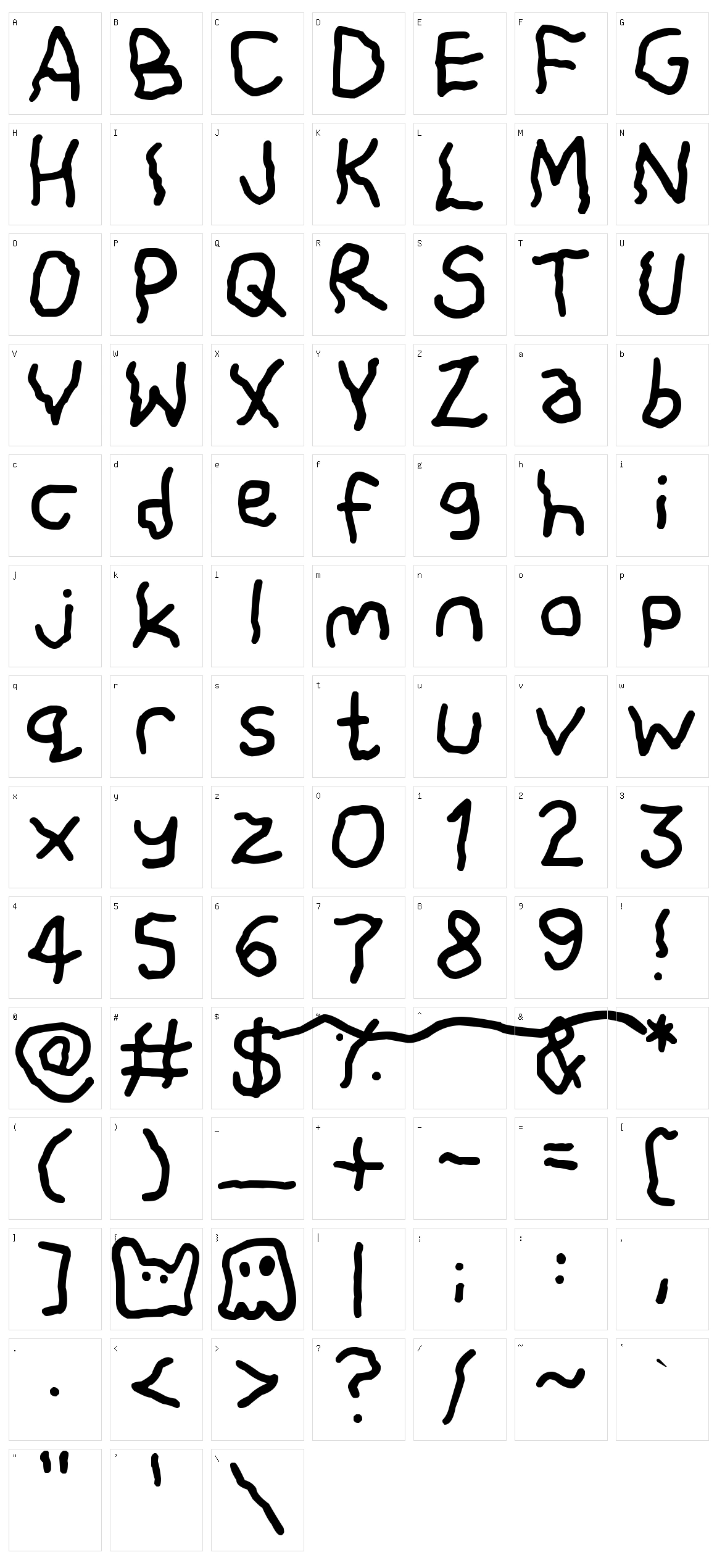
The free font Shiver is carefully designed by Hawtpixel, showcasing a thoughtful balance of creativity and usability and falls under the Script font style. When you download the ZIP file, it contains only 246.92 KB of font files, making it lightweight and quick to download. Please review the license details below to understand permitted usage and distribution rights. If license information is not available, we recommend using this font for personal projects only or contacting the author directly for commercial usage permissions.